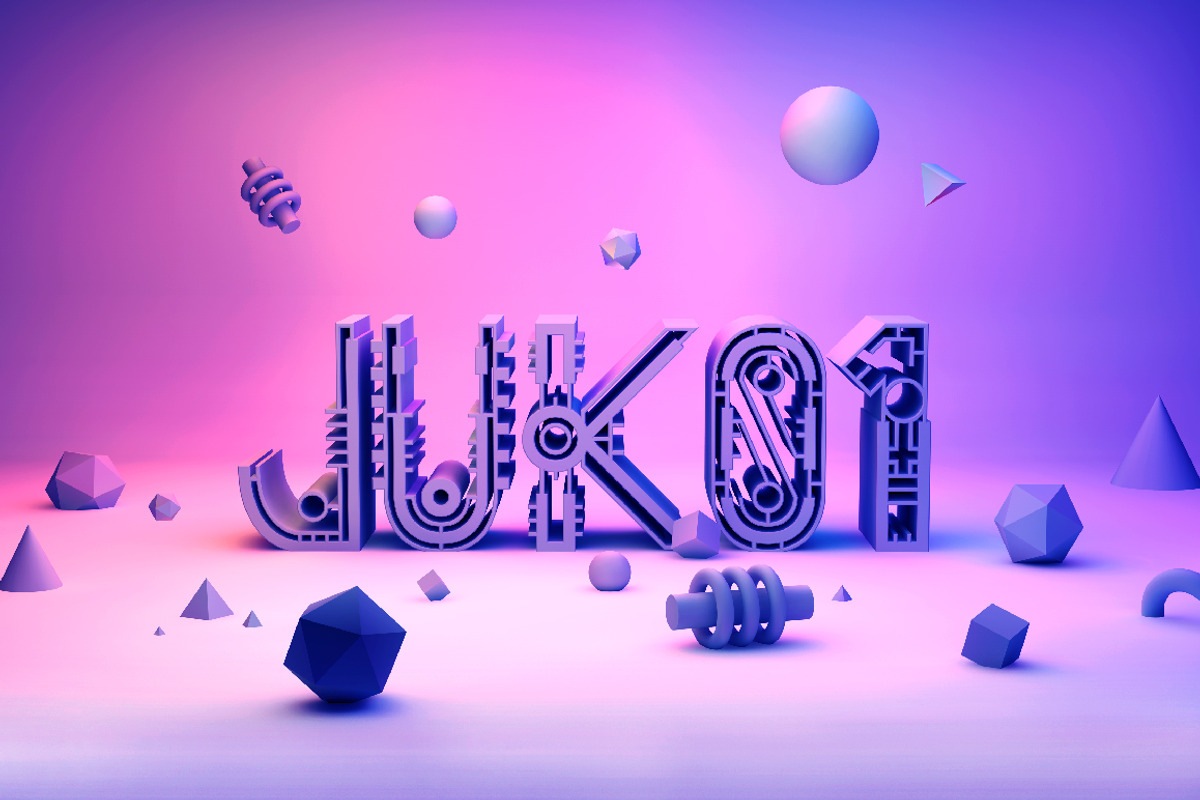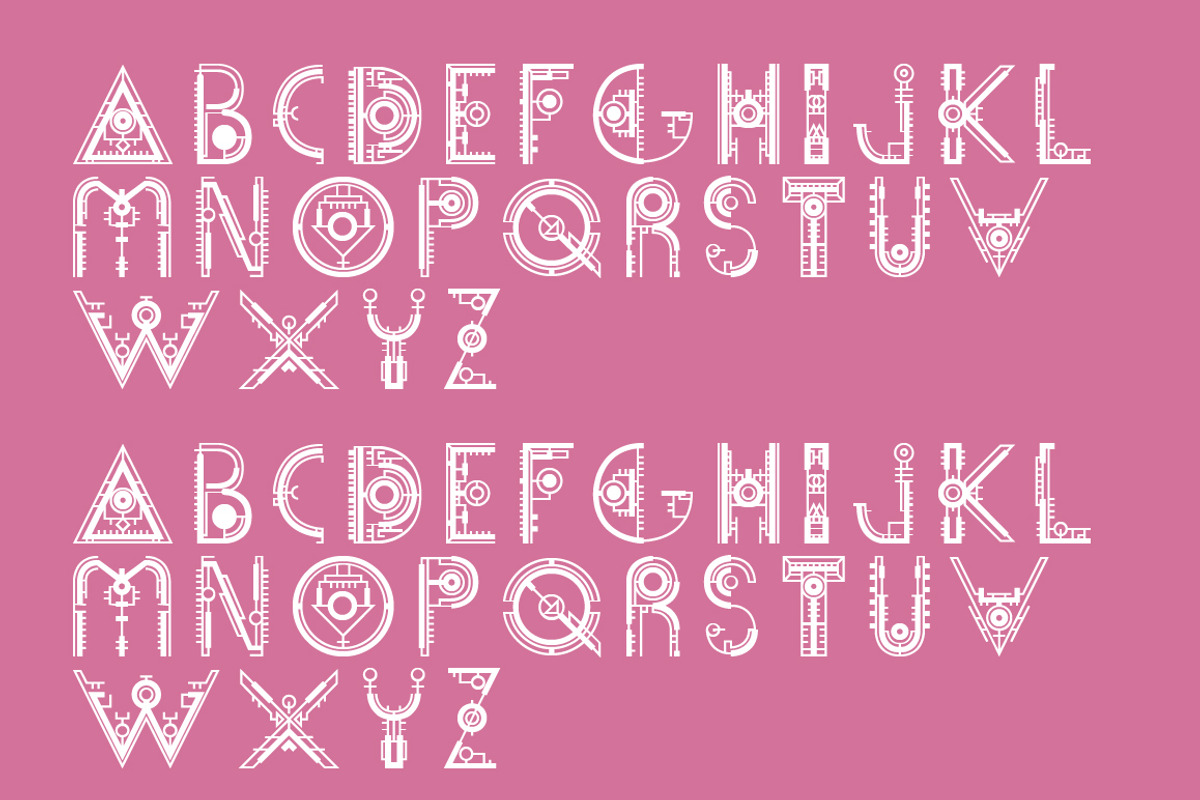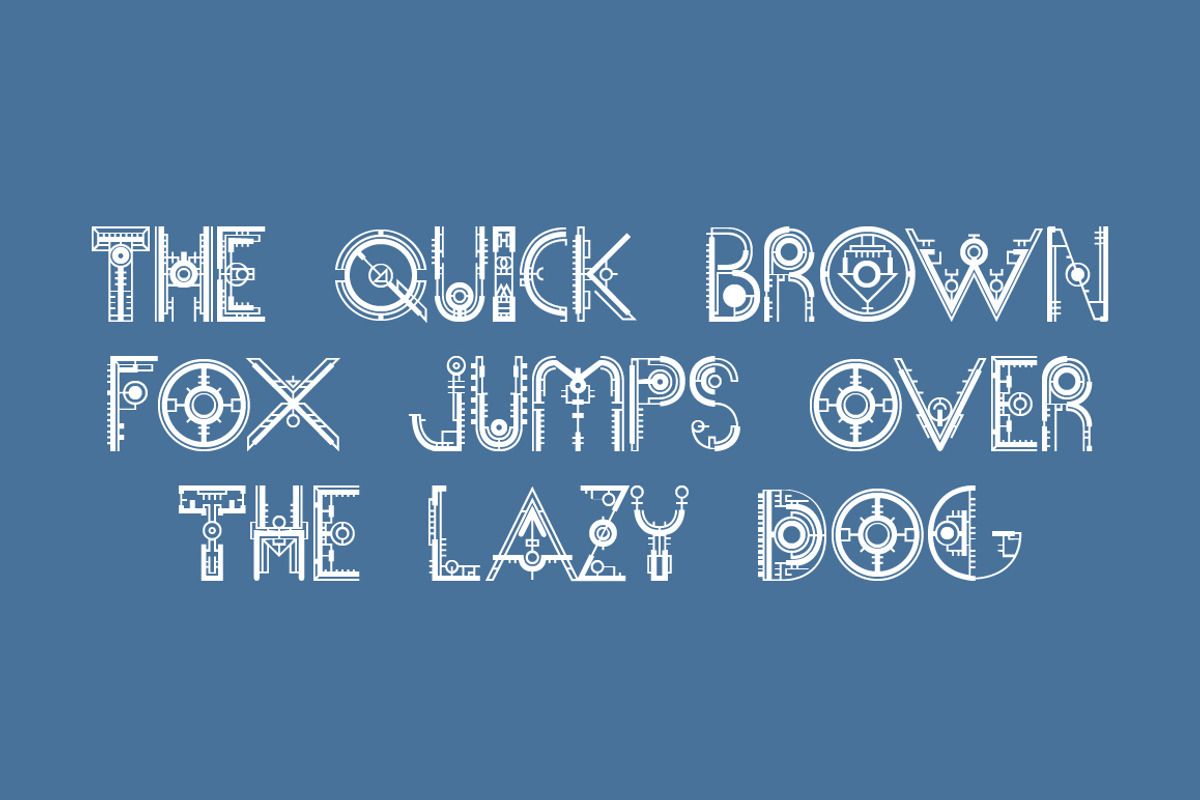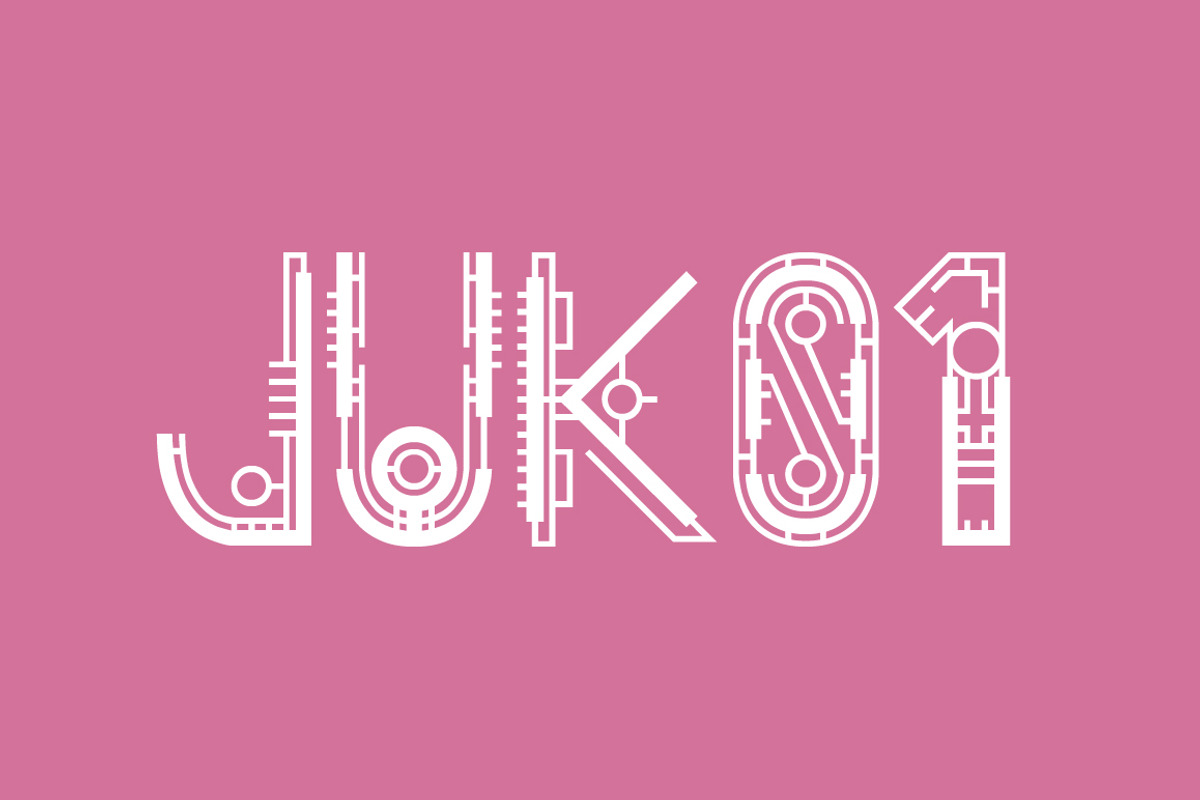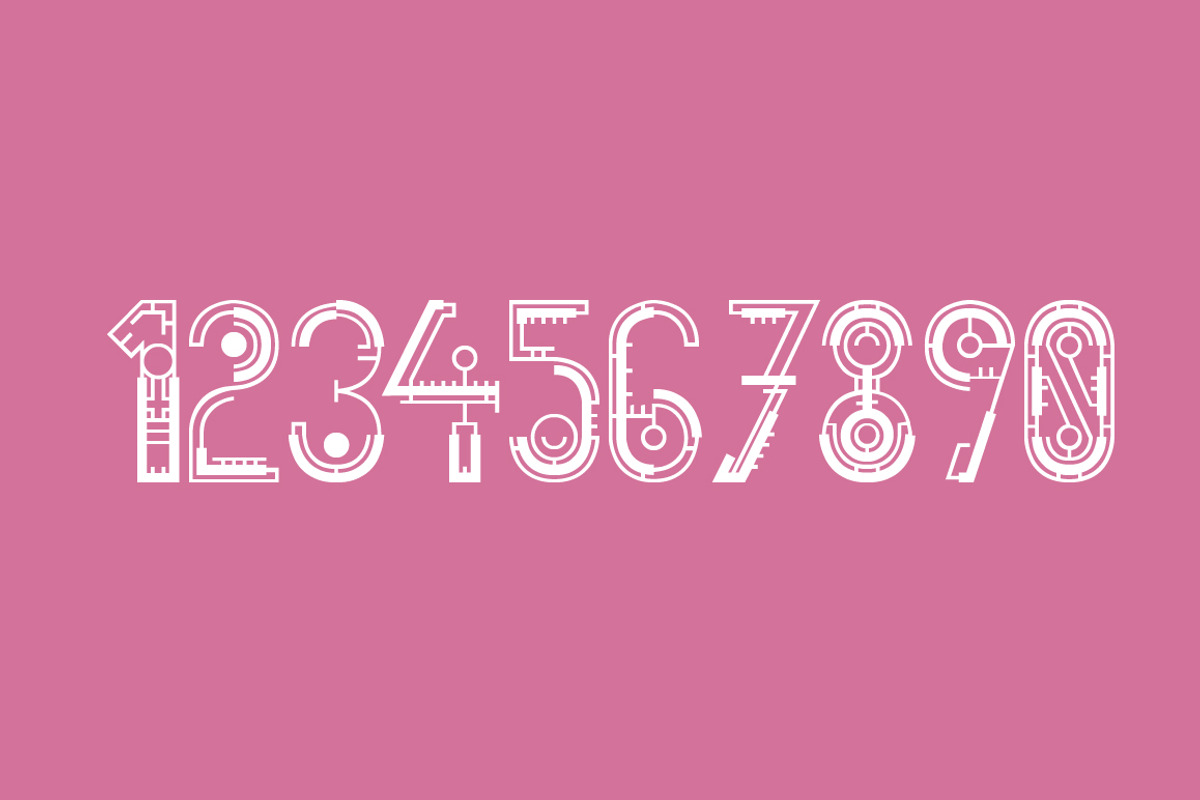
Juk01 Typeface
Juk01 Typeface by Alt Foundry is a font selected for branding, posters, packaging, typography.
Why Juk01 Typeface is worth a look
Juk01 Typeface by Alt Foundry fits naturally into Branding, posters, packaging, typography.